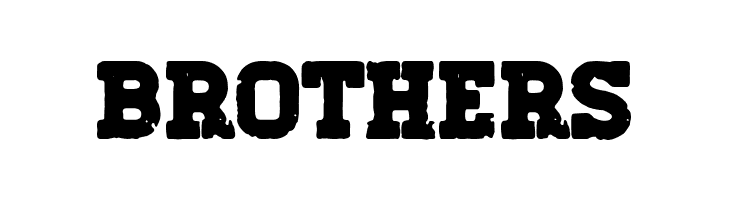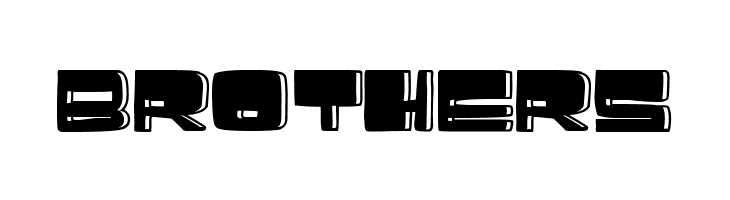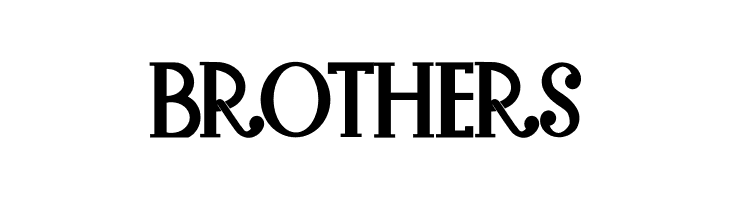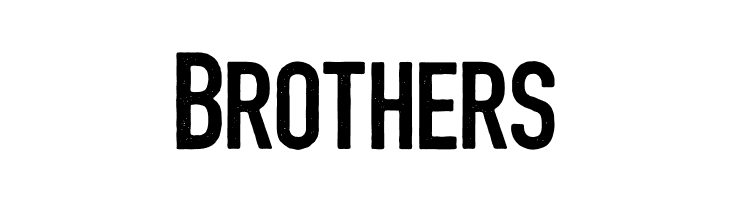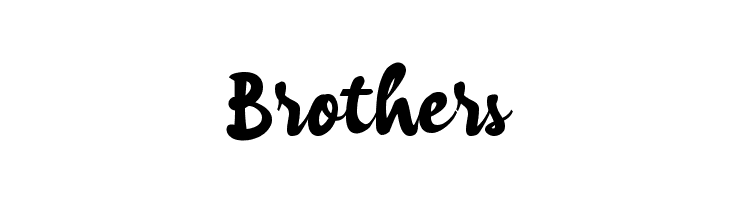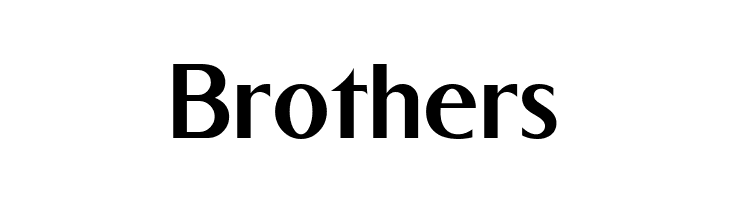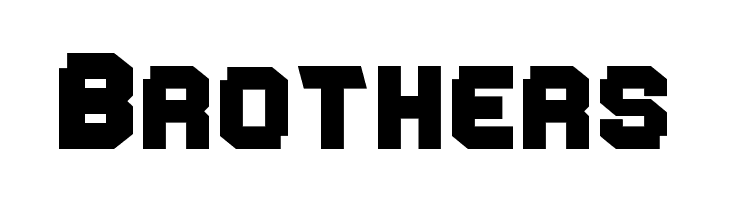
• Bannie
A bold, playful script font with smooth, flowing strokes.
• Banquet Hollow Regular
A bold, hollow font with a three-dimensional effect and consistent stroke width.
• Banquet Regular
A bold, three-dimensional font with a shadowed outline for a modern, impactful look.
• Bansat
A bold, brush-style font with dynamic, slanted strokes and sharp angles.
• Bantaci
An elegant script font with fluid, graceful strokes and calligraphic flair.
• Banten Unfamous
A bold, angular font with a gothic, geometric style.
• BANTER
A playful, bold font with a hand-drawn, whimsical style.
• Bantham
A dynamic, cursive script font with bold, sweeping strokes and elegant flourishes.
• Bantham
A flowing, elegant script font with bold, cursive strokes and artistic flourishes.
• Banthern Personal Use
A bold, decorative font with vintage-inspired, ornate details.
• Bantorain
A bold slab serif font with strong, block-like serifs and uniform width.
• Bantorain Bold
A bold, slab serif font with strong geometric shapes and thick strokes.
• Bantorain Bold Italic
A bold, italic font with thick strokes and a dynamic, slanted style.
• Bantorain Italic
A bold, italic font with a strong slant and modern appeal.
• Banttany-Regular
A playful, casual handwritten font with flowing, connected letterforms.
• bantum caps
A rugged, distressed font with a stencil-like, vintage appearance.
• Banyu langits Regular
A bold, handwritten font with a dynamic and casual style.
• Banyu_